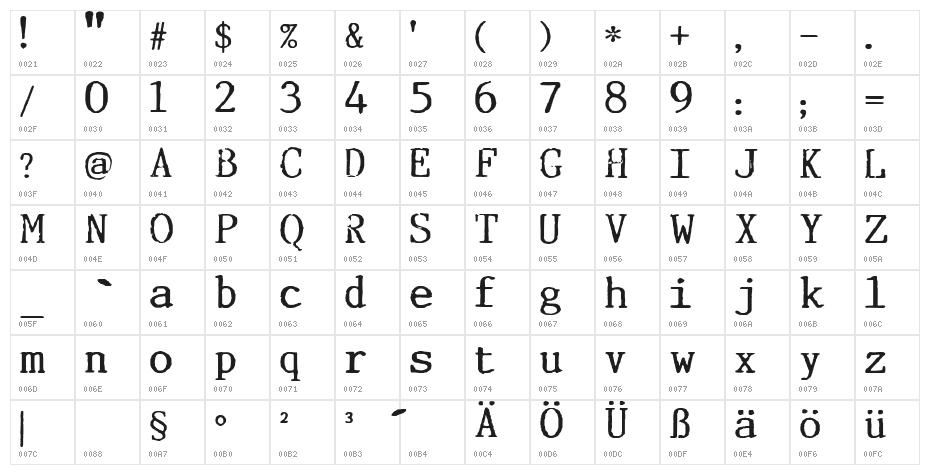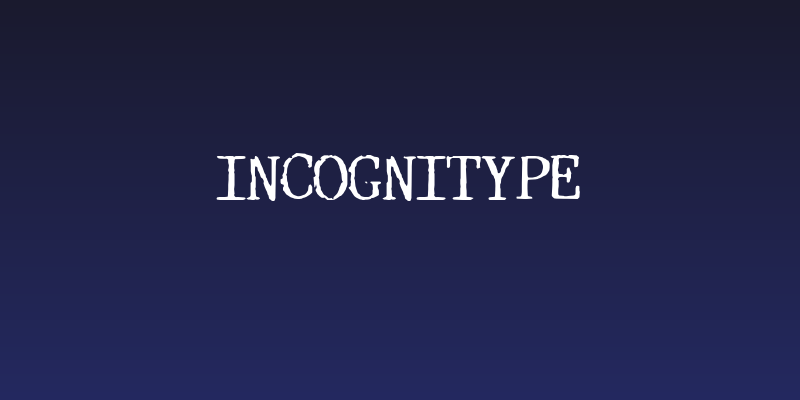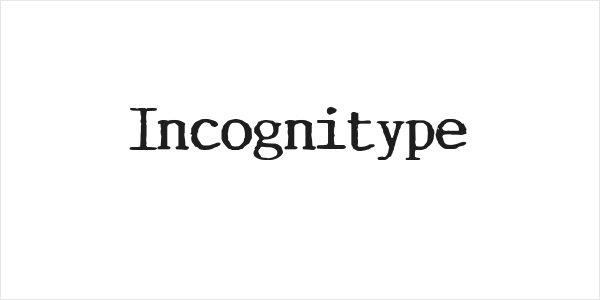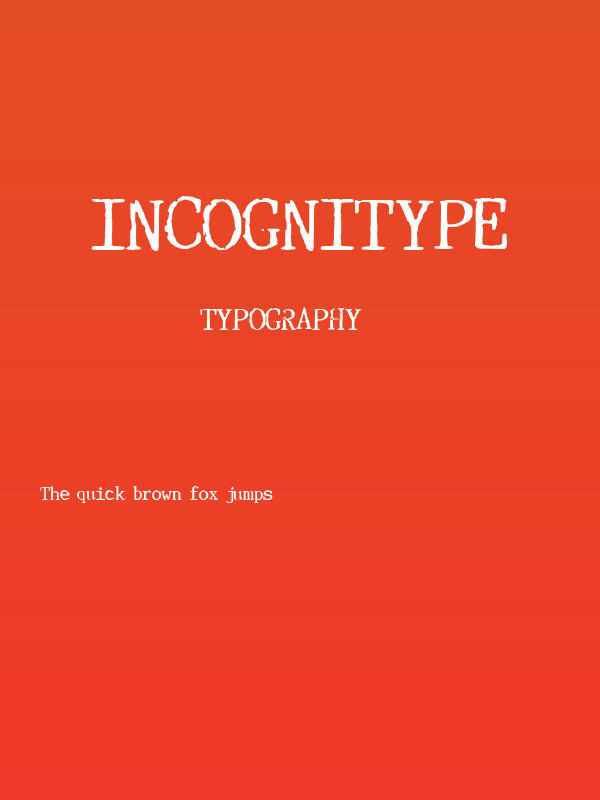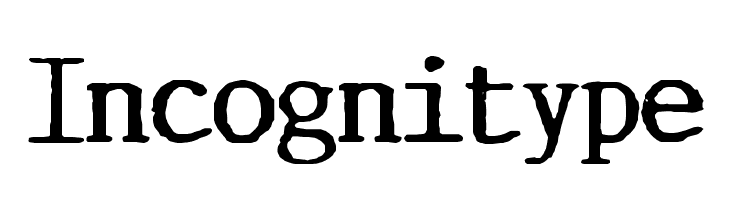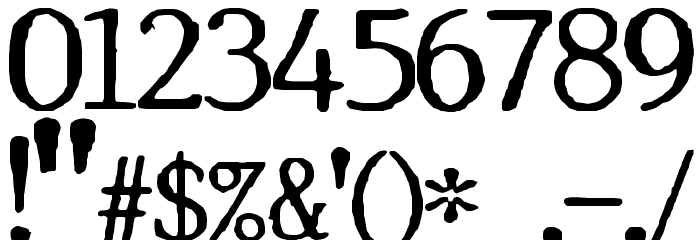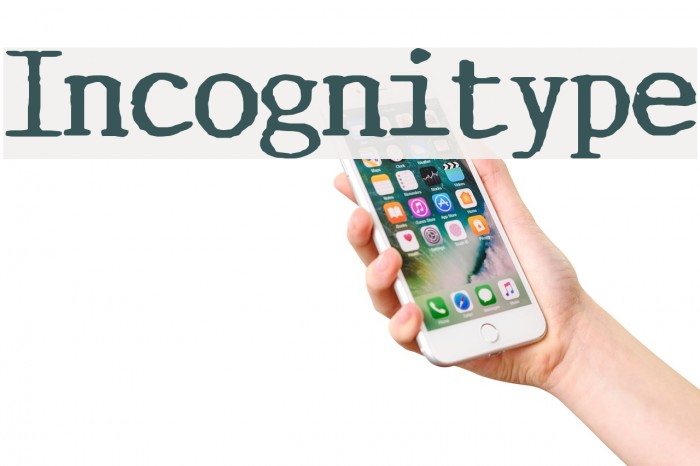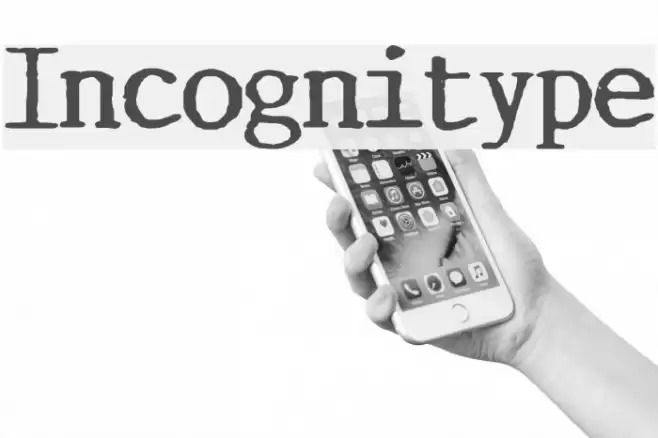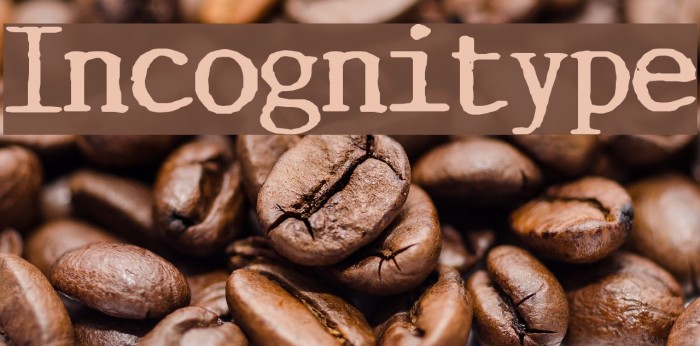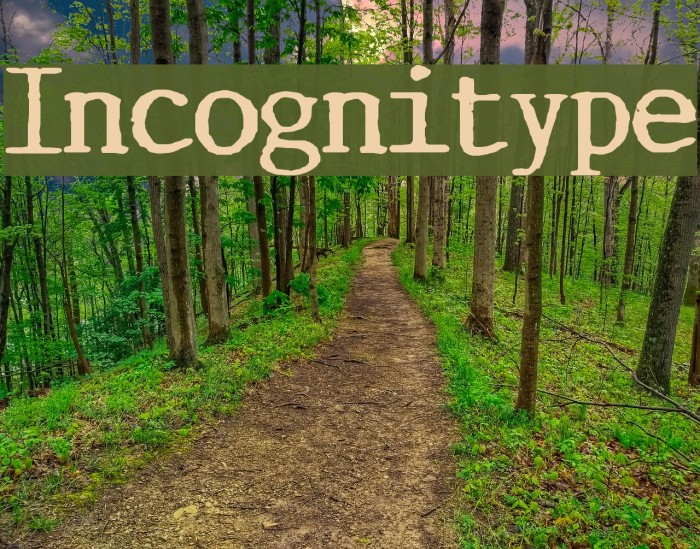
Incognitype Font
Incognitype Description
This font features a distressed, vintage style with a rough texture that gives it an aged, weathered appearance. The uppercase and lowercase letters maintain a consistent height, while the numerals and special characters follow the same rugged aesthetic. The strokes are uneven, adding to the hand-crafted feel, and the serifs are pronounced yet irregular, enhancing the overall rustic charm. This font is ideal for projects that require a touch of nostalgia or a handcrafted look, such as posters, branding for artisanal products, or vintage-themed designs.
| Overall Style | Vintage |
| Proposed Projects | Ideal for vintage posters, artisanal branding, rustic-themed designs, and nostalgic projects. |